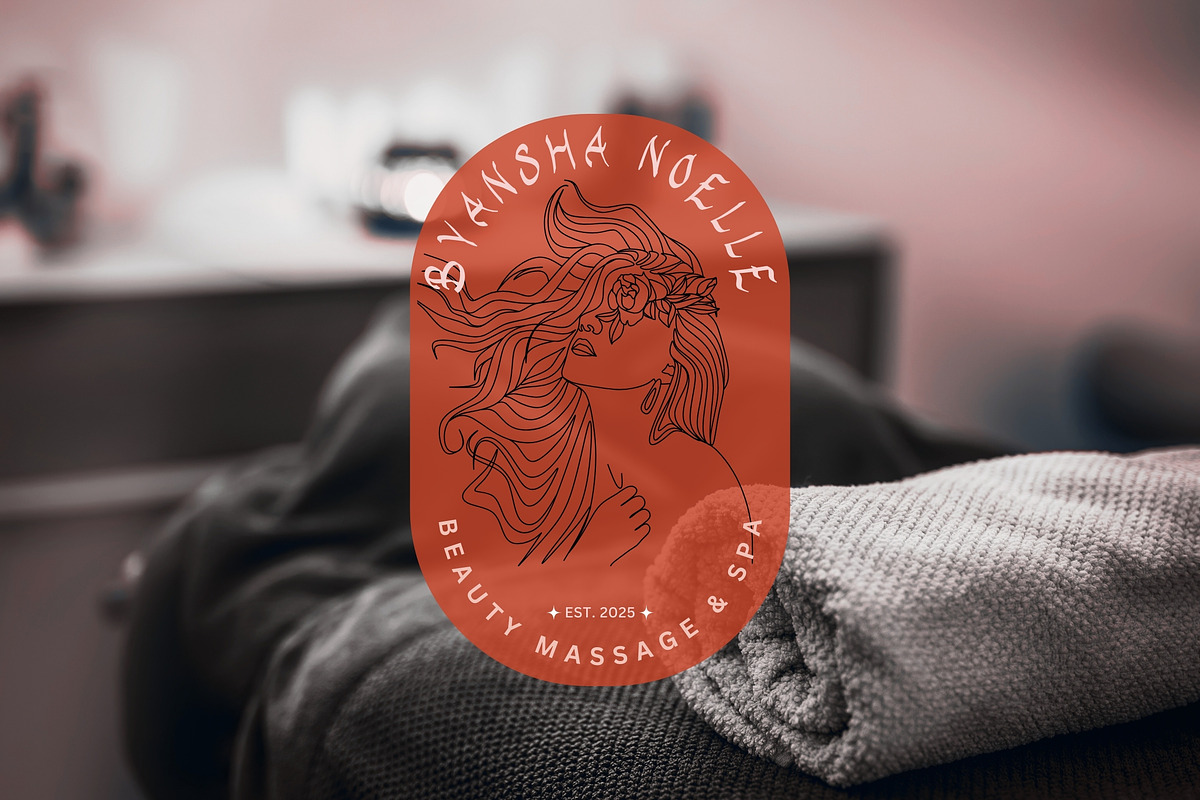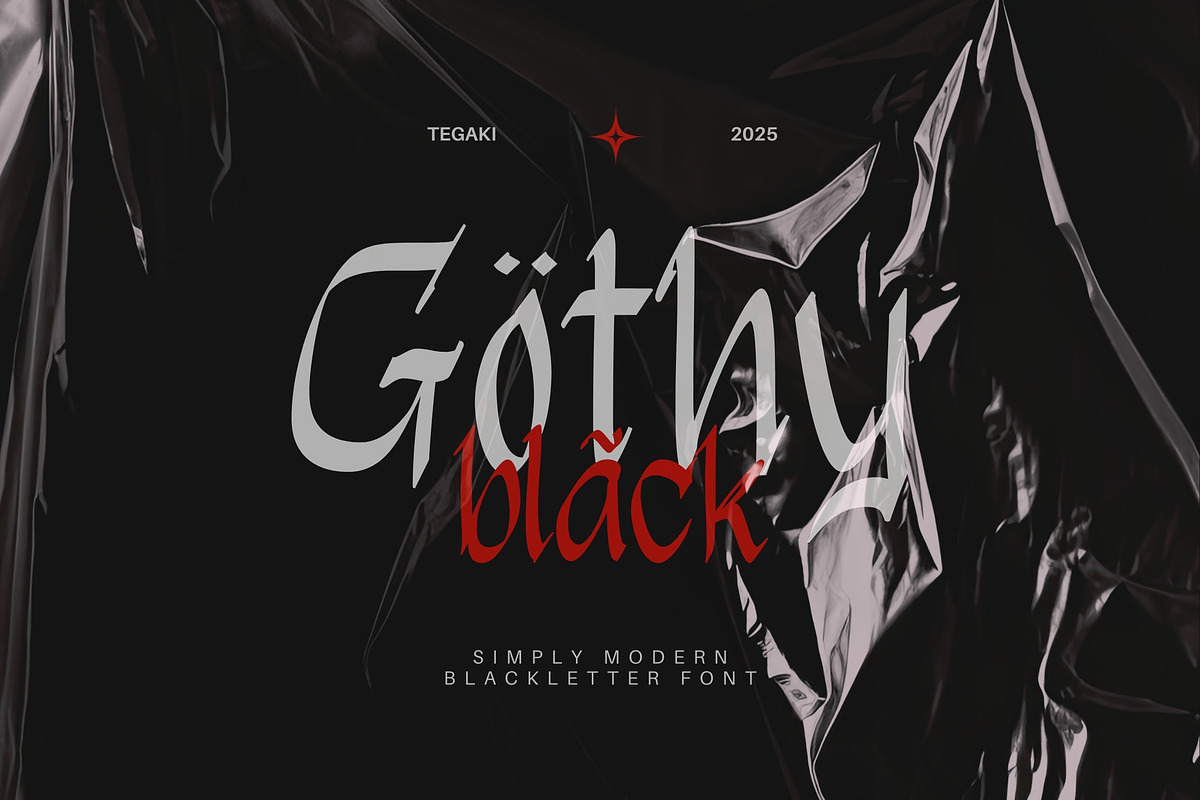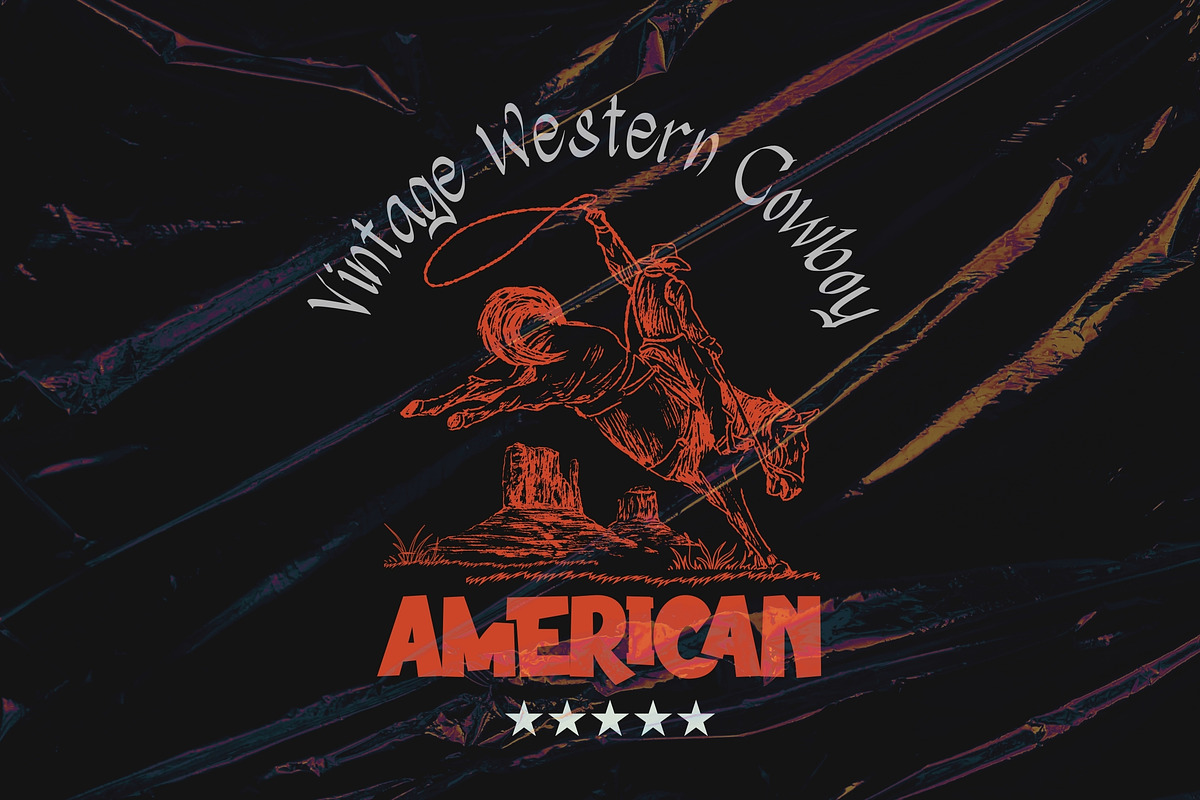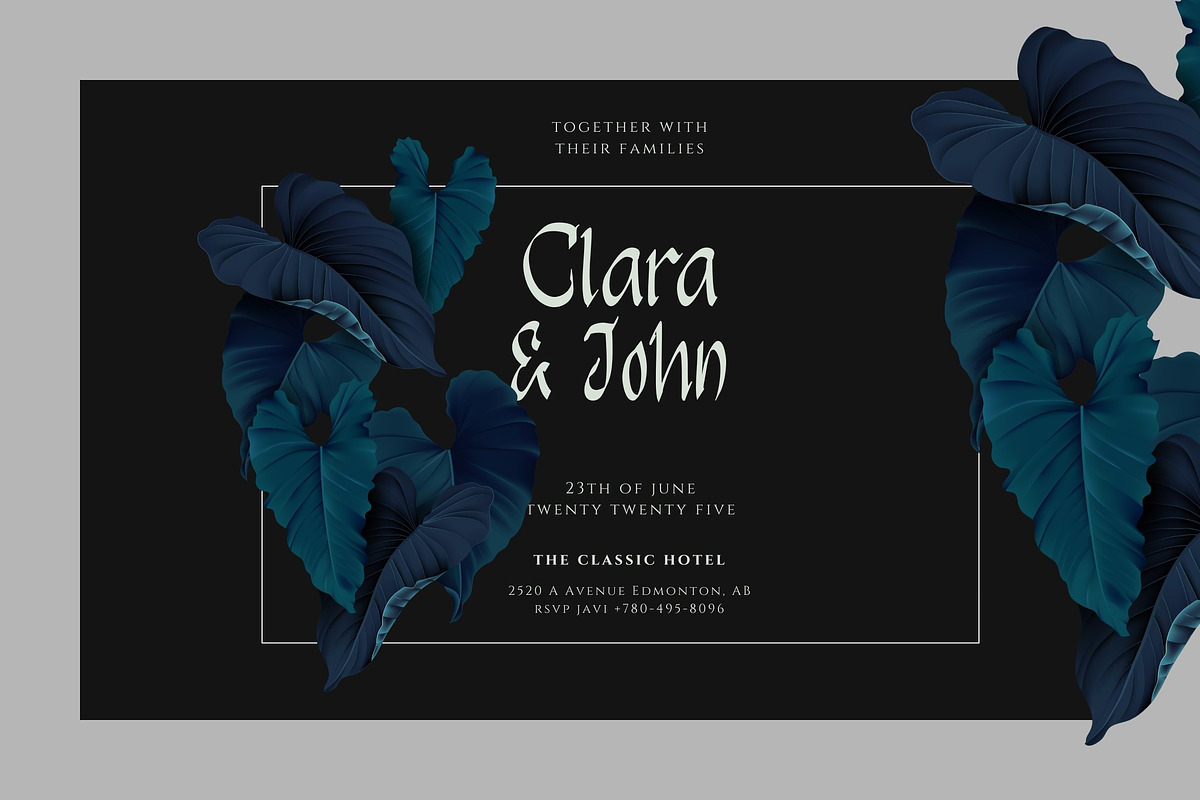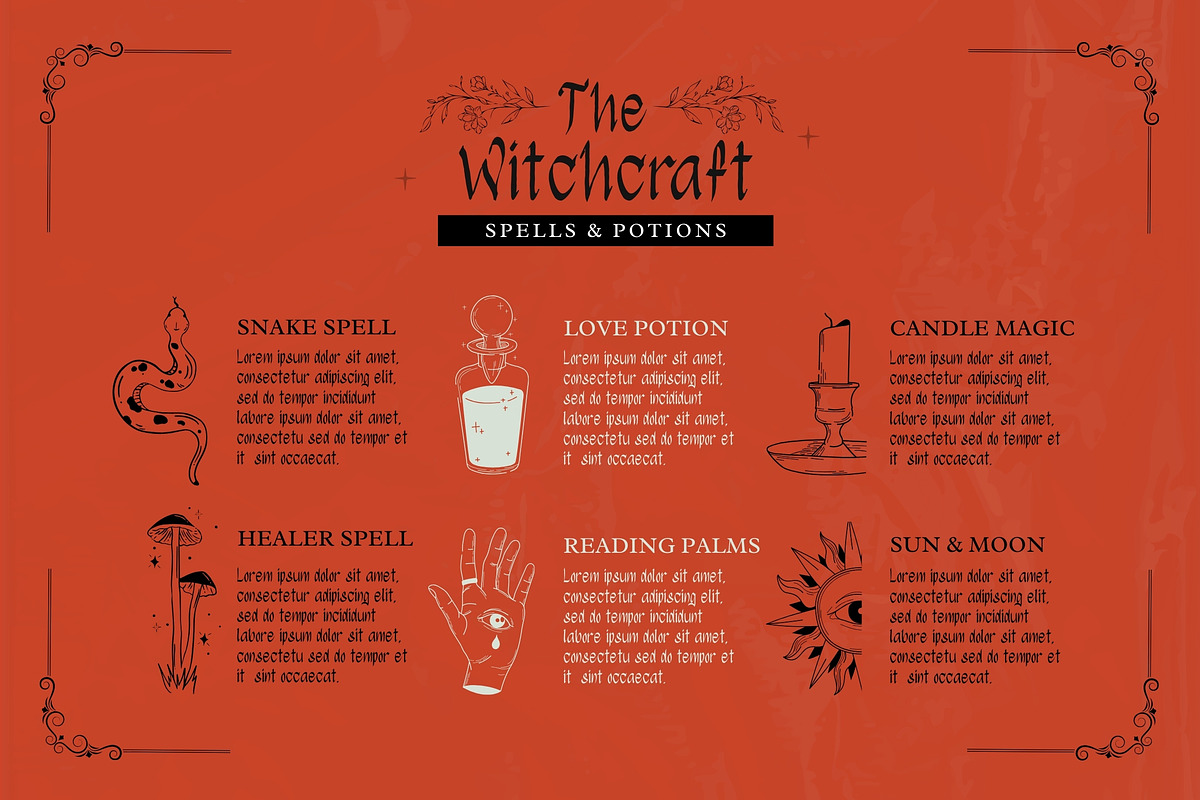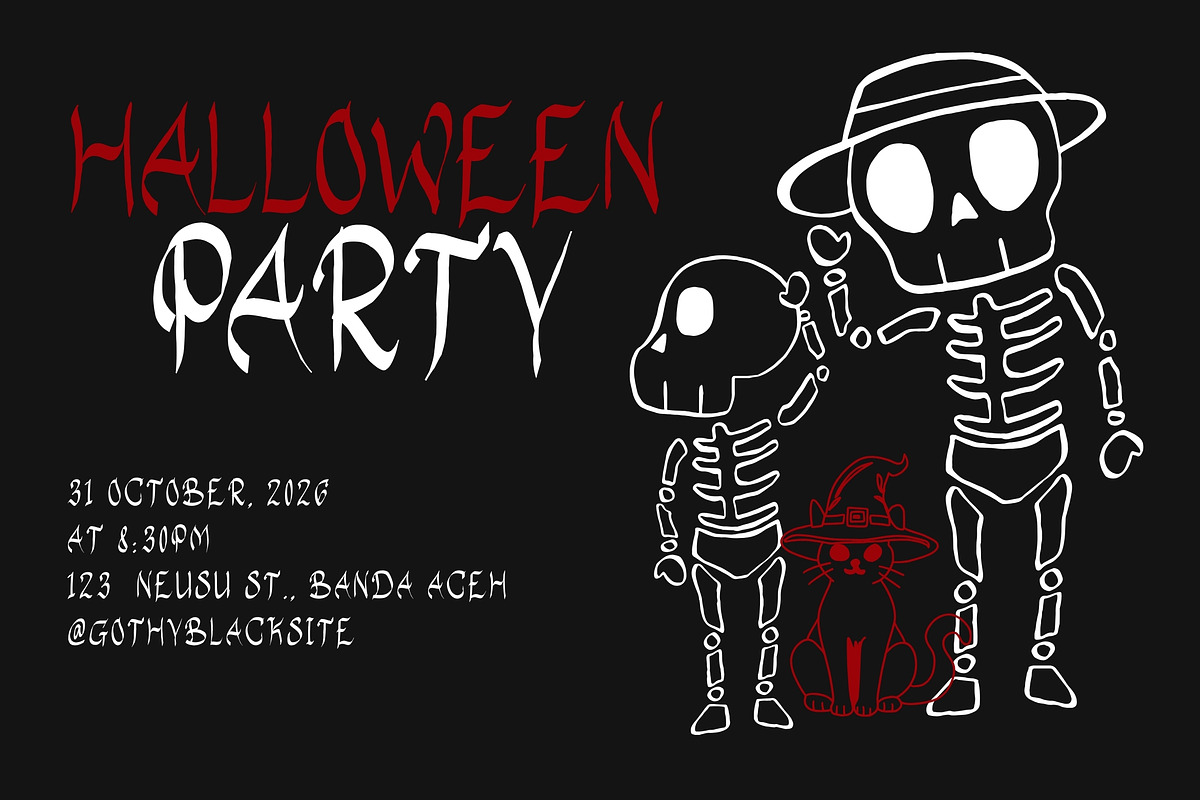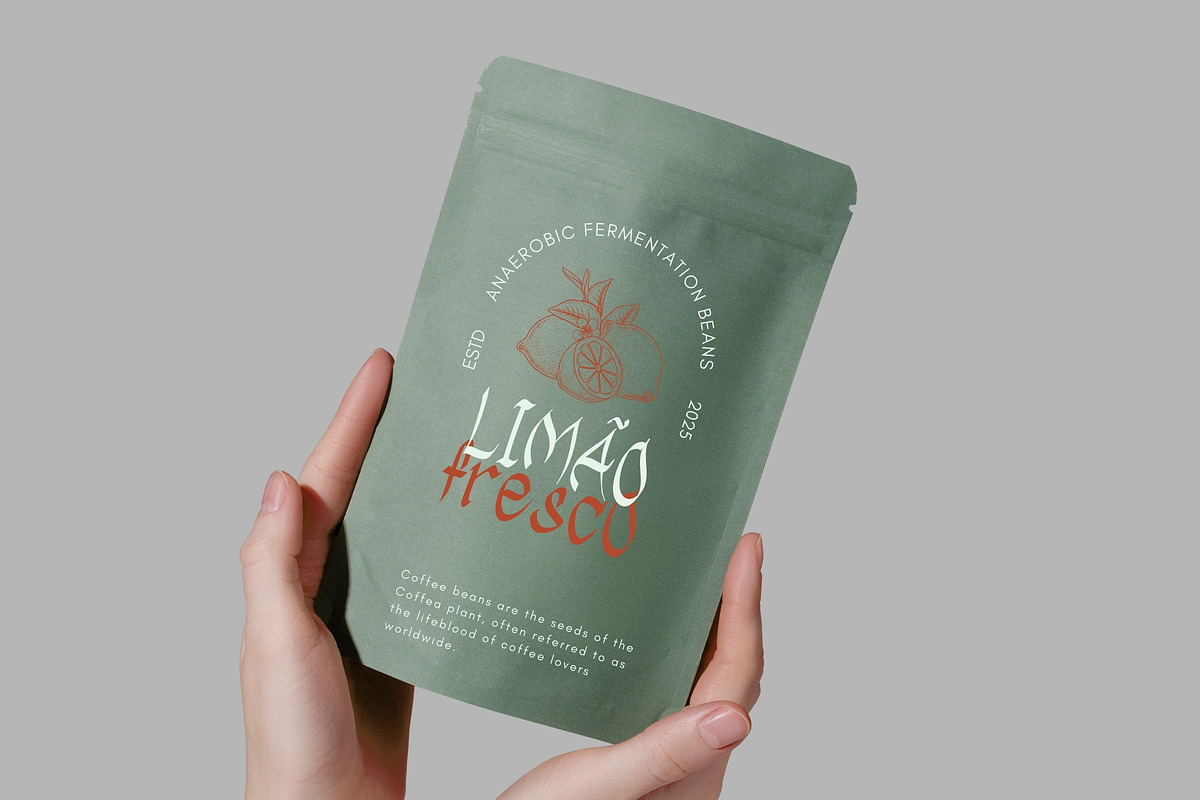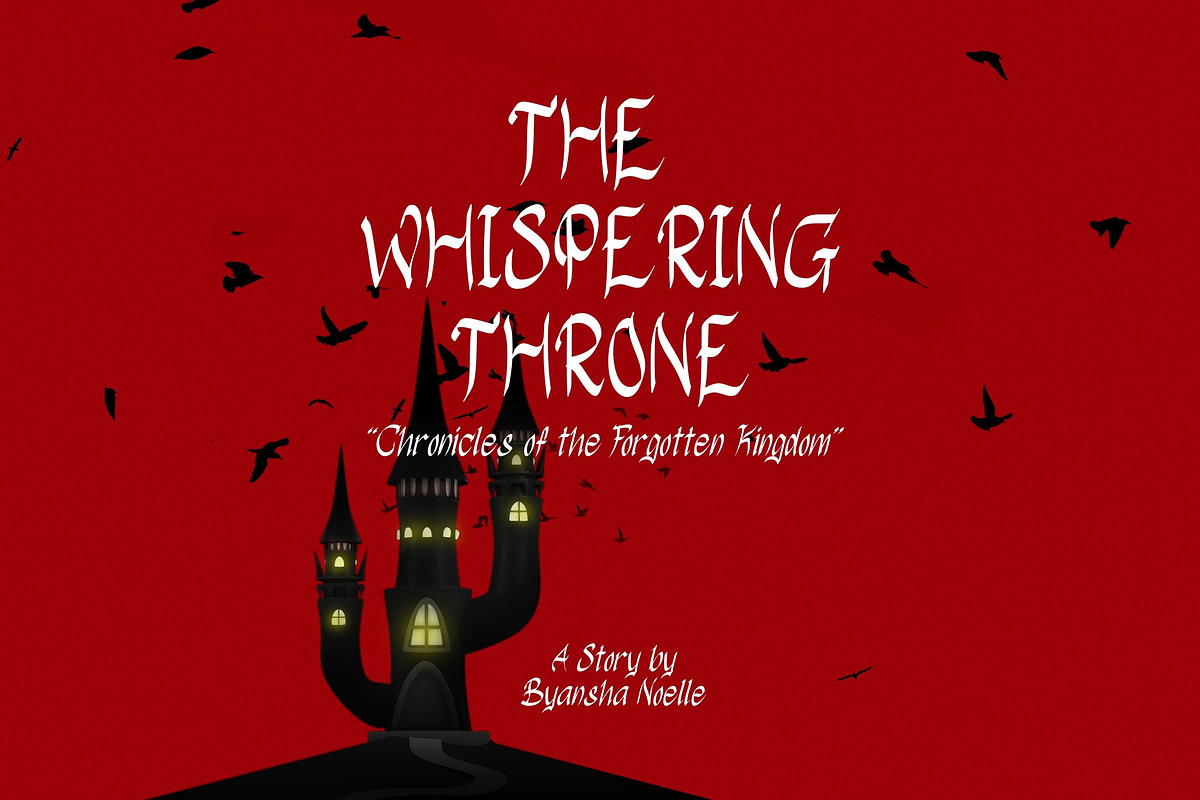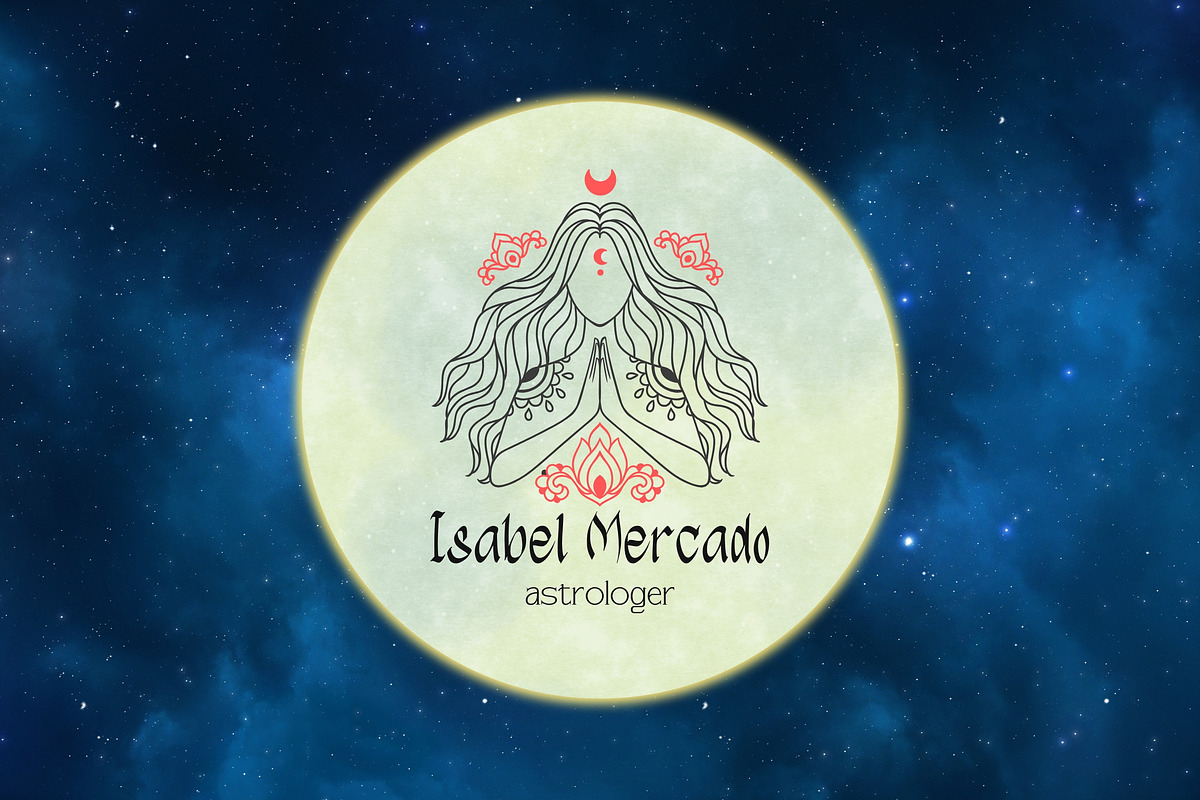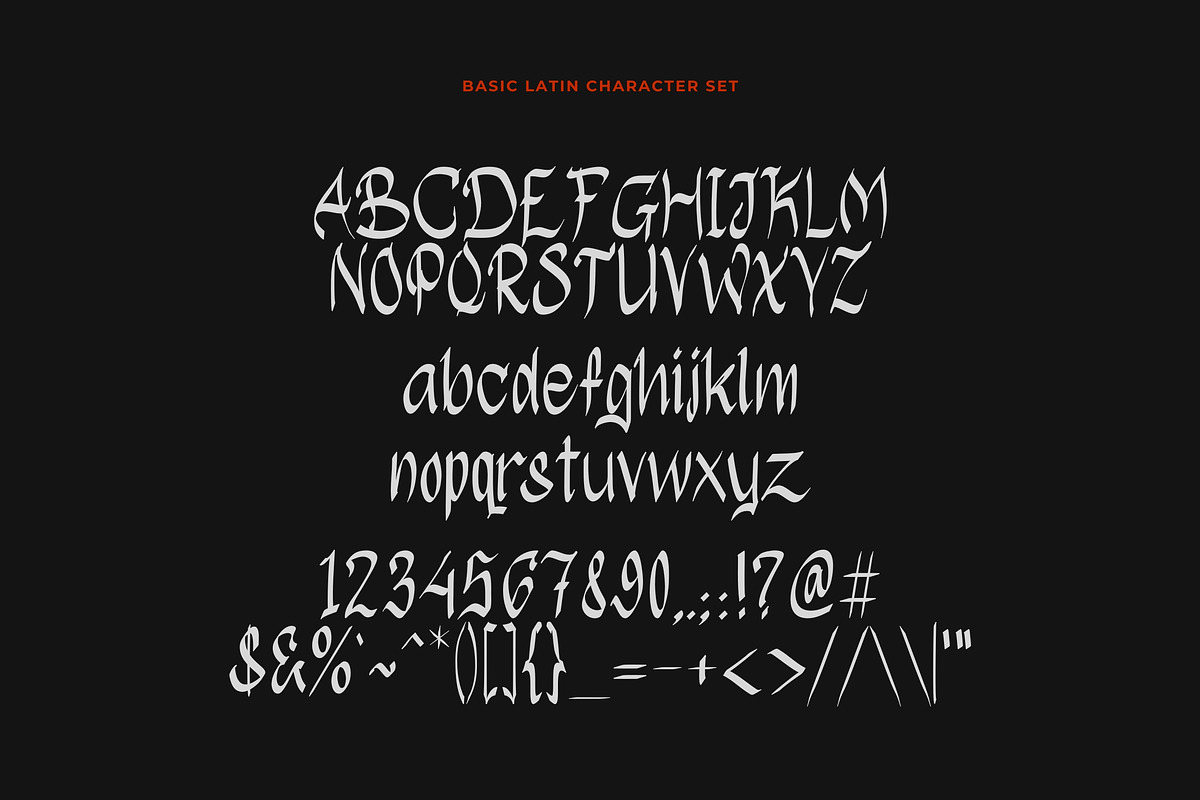
Gothy Black
Introducing Gothy Black
Designed by Tegaki Script
Gothy Black is a stylish blend of tradition and modernity. Inspired by classic blackletter fonts, it features a sleek and simplified design, making it more readable while maintaining its bold, gothic character. The sharp yet clean lines give it a strong and elegant look, perfect for those who want a touch of vintage charm with a modern twist. This Gothy Black comes with 4 style : regular, brush, regular slant, and brush slant.
This font is ideal for:
- Logos & Branding – Perfect for edgy, bold brand identities.
- Posters & Headlines – Creates a striking visual impact.
- T-shirt & Merchandise – Adds a cool, gothic vibe to apparel.
- Book Covers & Magazines – Great for horror, fantasy, or historical themes.
- Social Media & Digital Designs – Enhances aesthetics for Instagram posts, YouTube thumbnails, and more.
Whether you’re designing something dark and mysterious or just want a stylish, unique typeface, Gothy Black is the perfect choice.